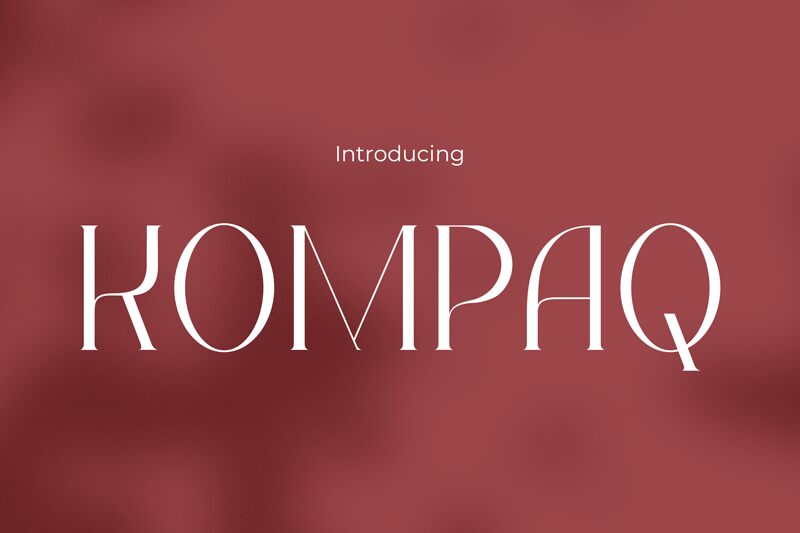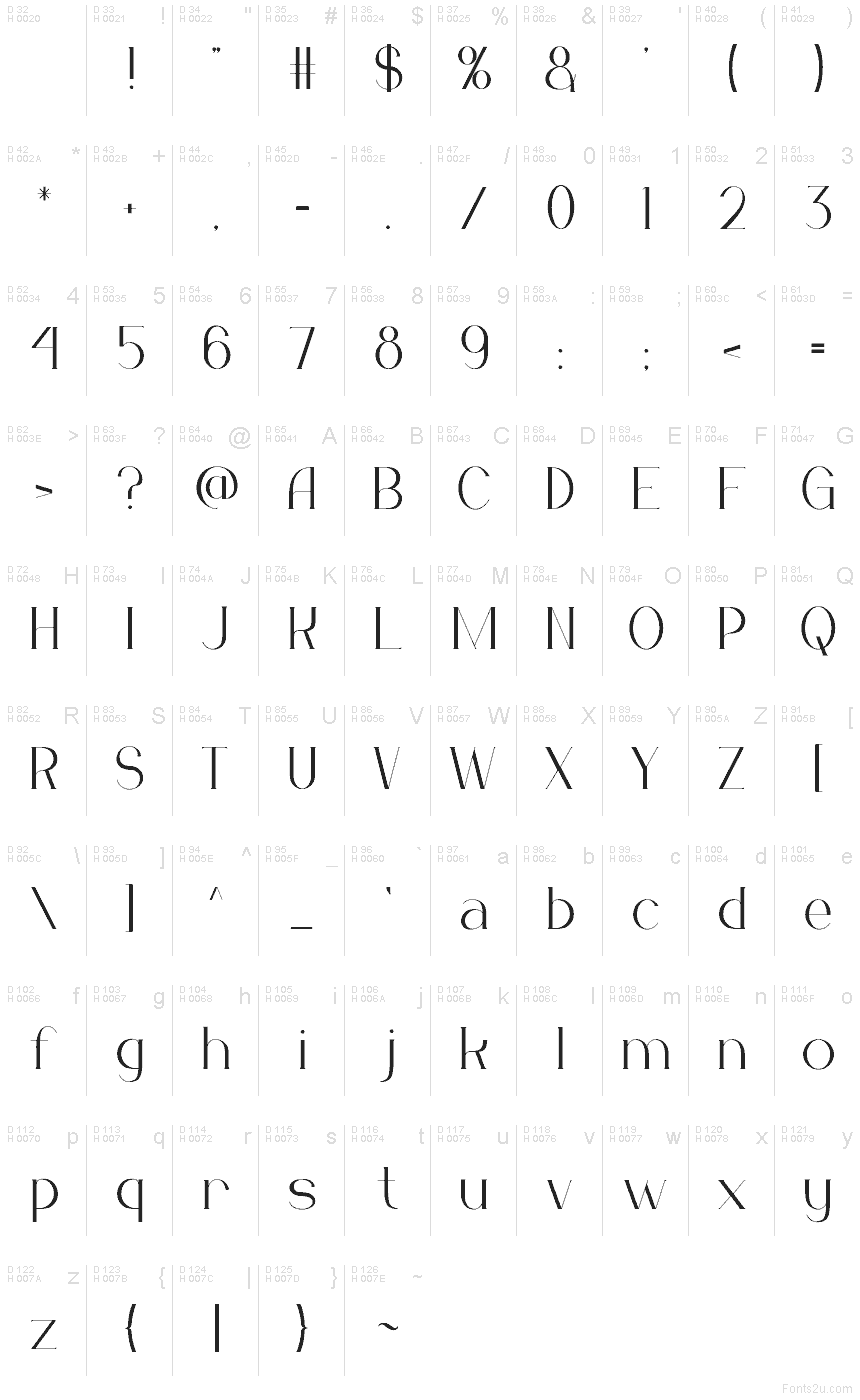
KOMPAQ
Kompaq font by Pinisiart is a free high-contrast serif display font. Built for tight spaces that still need drama, it compresses gracefully with tall, sculpted forms, razor-thin hairlines, and sharp, Art Deco–tinged terminals. The rhythm feels crisp and architectural, so headlines lock up neatly without losing that luxe, editorial glow.
Using Kompaq, you can elevate boutique branding, perfume or cosmetics packaging, fashion editorials, poster headlines, restaurant menus, and magazine mastheads. The compact width and striking contrast command attention at large sizes while keeping layouts efficient. For a balanced system, pair this free font with a quiet grotesk sans for body copy, and add a touch of tracking to let its hairlines breathe.